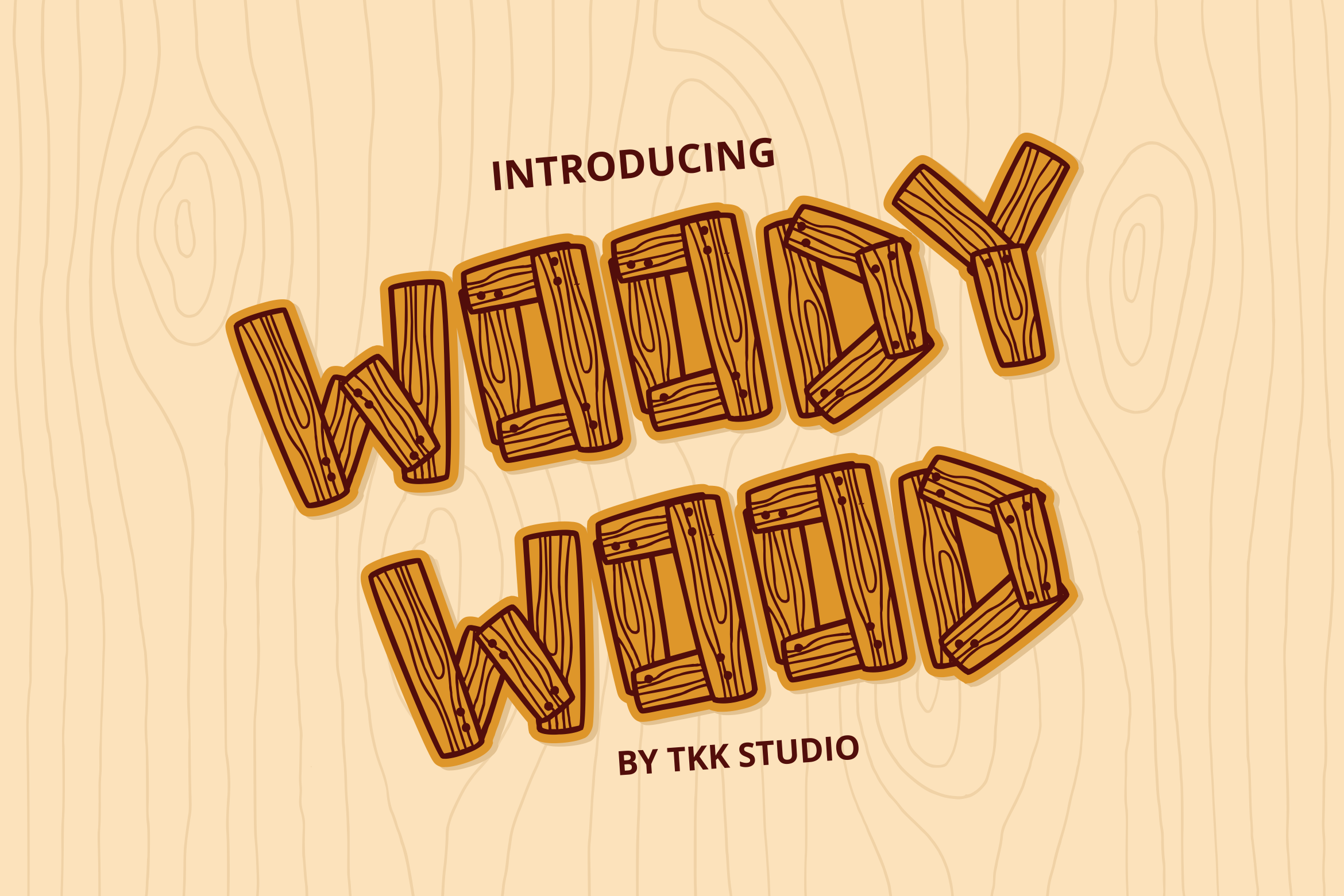
Woody Wood - Kids Font
Woody Wood Kids font took a wood plank, and we nailed them down and make them as a font. Suit perfectly for Adventure website headline, poster, travelling magazine, and so on.